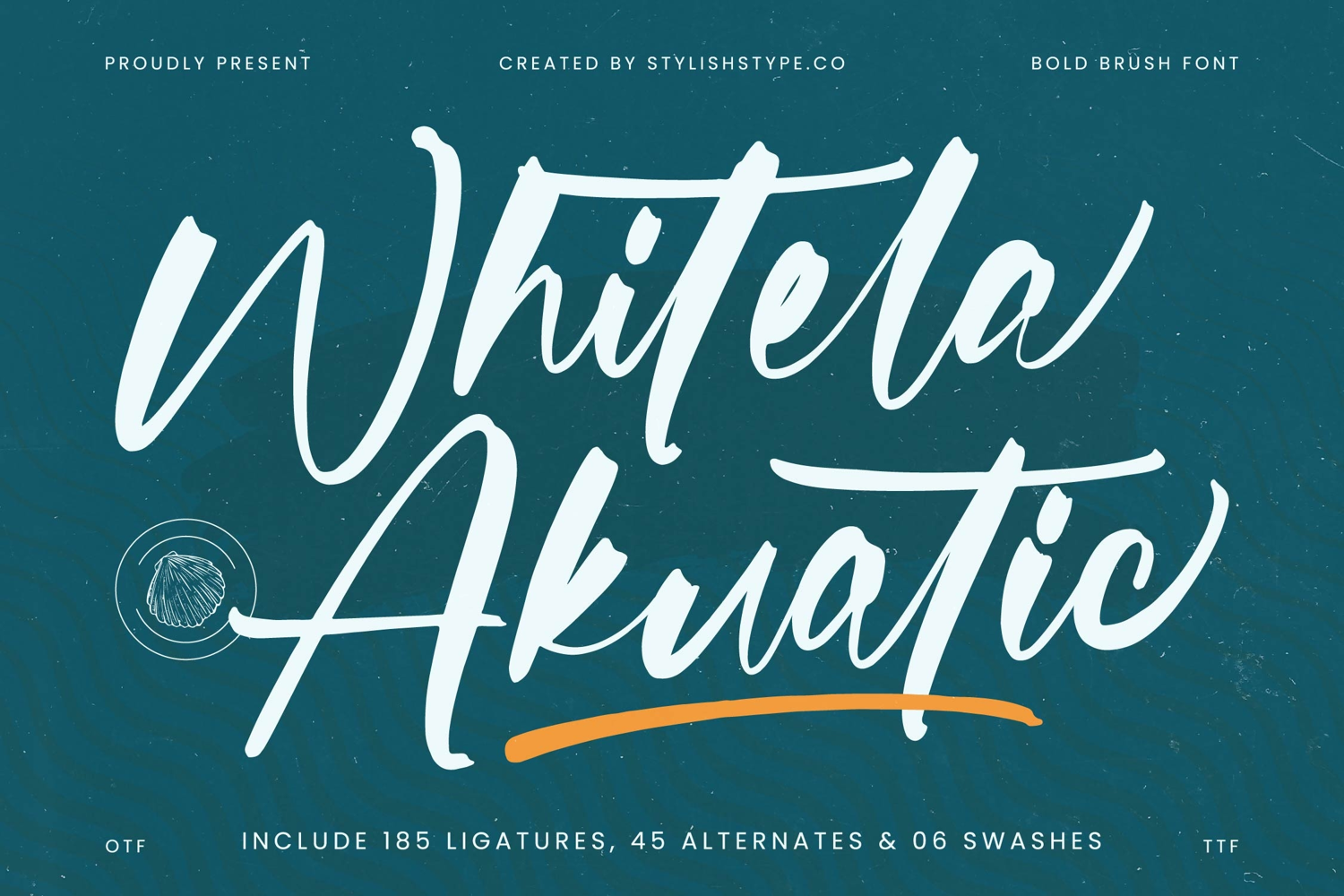
Whitela Akuatic - Bold Brush Font
Unleash unparalleled expressiveness with Font Whitela Akuatic - Bold Brush Font Script, a truly distinctive typeface designed to command attention. This captivating script embodies a dynamic, handcrafted aesthetic, instantly infusing your projects with an authentic and energetic flair. Its bold, free-flowing strokes create an immediate visual impact, perfect for designs demanding a touch and a memorable identity.
Elevate your creative vision with the remarkable customization offered by Font Whitela Akuatic - Bold Brush Font Script. Featuring an impressive array of 185 ligatures, 45 alternates, and 06 swashes, this font provides boundless possibilities for crafting unique and engaging compositions. Each character flows seamlessly, creating a natural, handwritten feel. With its extensive multilingual support, Font Whitela Akuatic - Bold Brush Font Script adapts seamlessly across global markets, making it incredibly versatile for international projects.
Discover the perfect typographic solution for your most impactful designs with Font Whitela Akuatic - Bold Brush Font Script. It is perfectly suited for luxury branding, packaging design, apparel graphics, and captivating social media campaigns. Whether crafting evocative editorial headlines or striking product labels, this font delivers a powerful statement. Its inherent authenticity and bold character ensure your message resonates clearly and memorably.